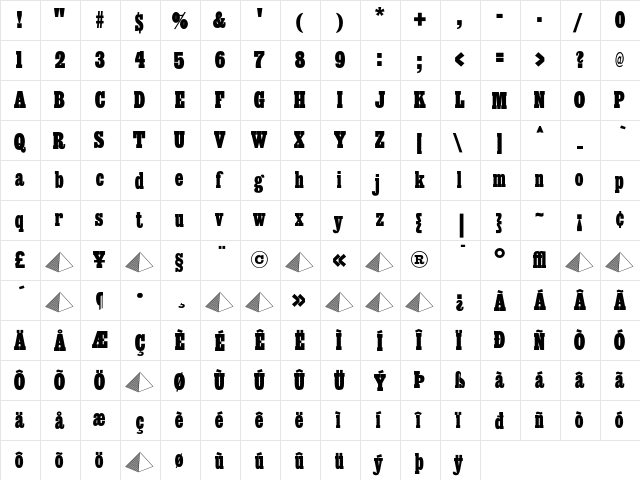
Giza OneOne
Design Context for Giza Typeface
Giza channels digital-age aesthetics through its sharp, structured letterforms — ideal for brands that want to signal innovation.